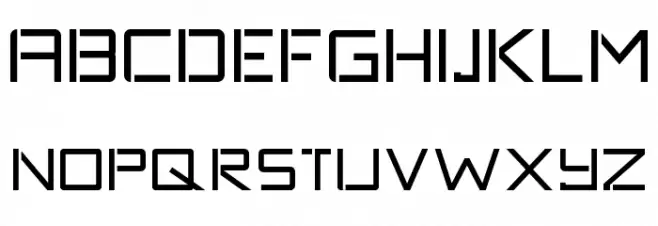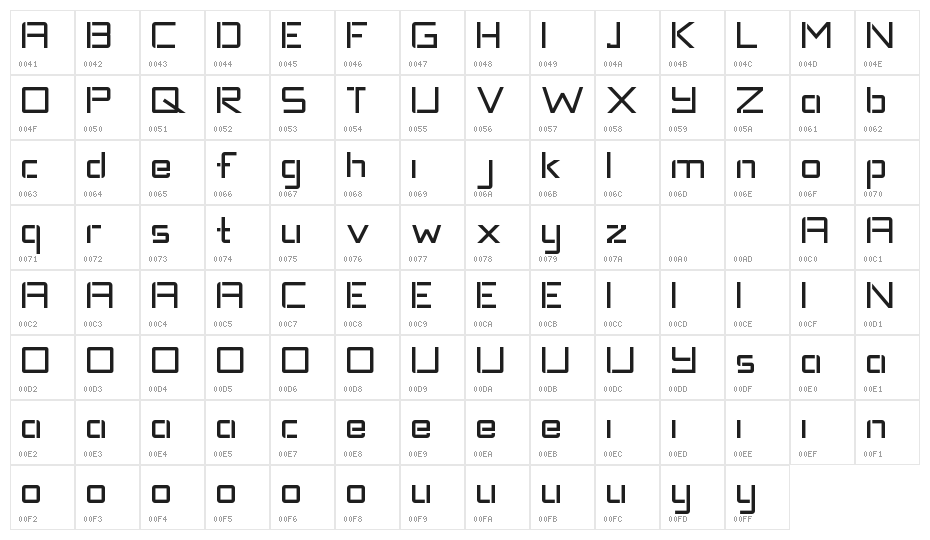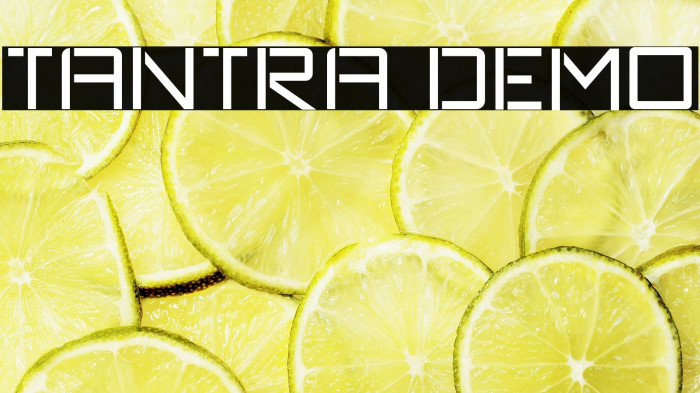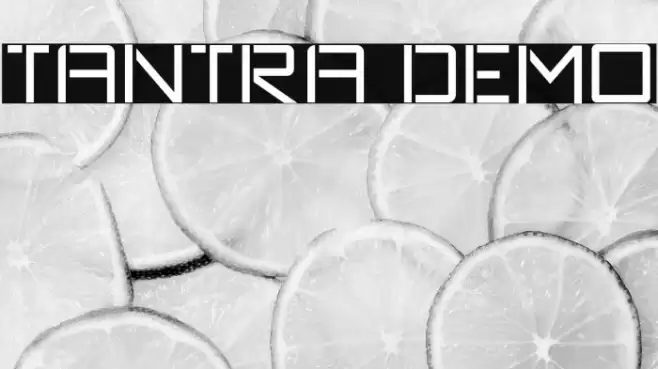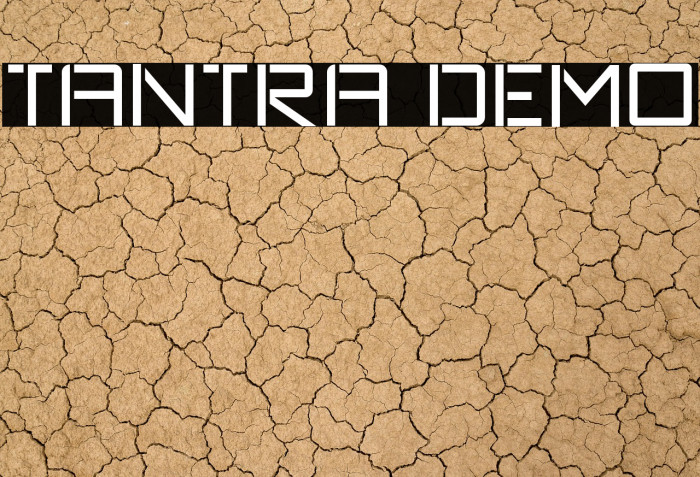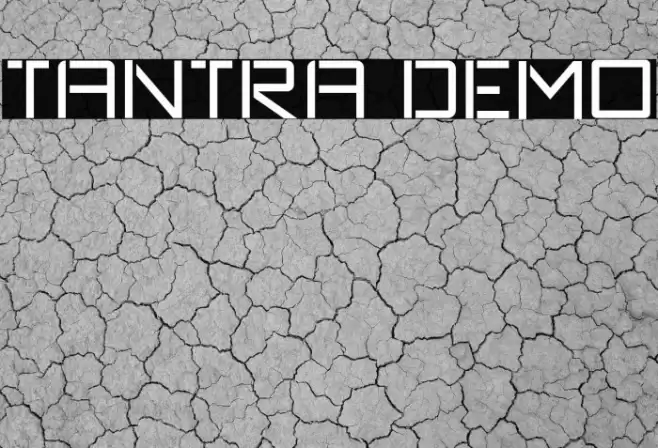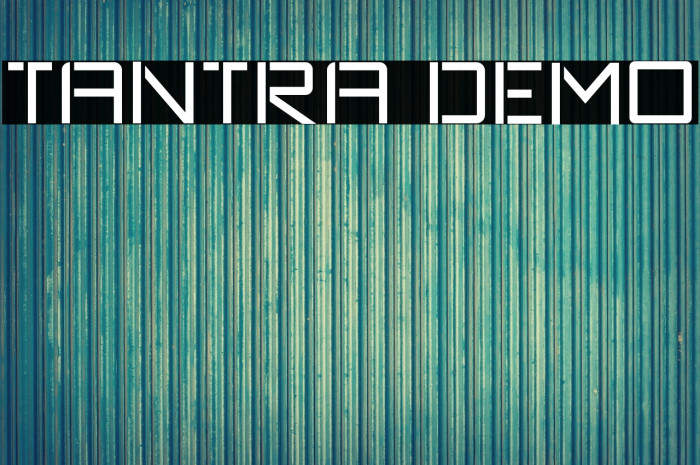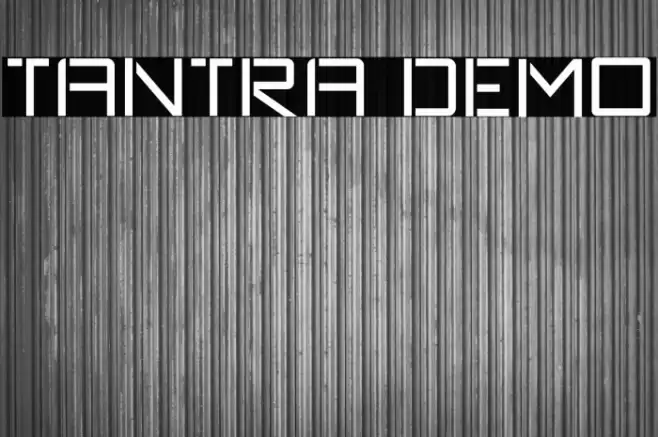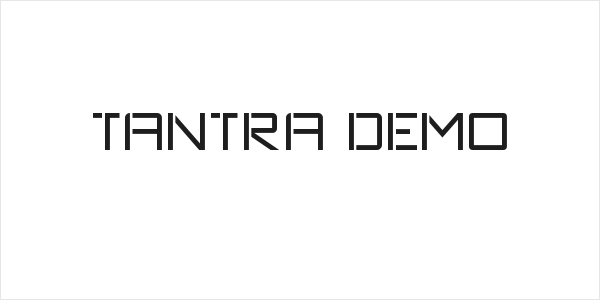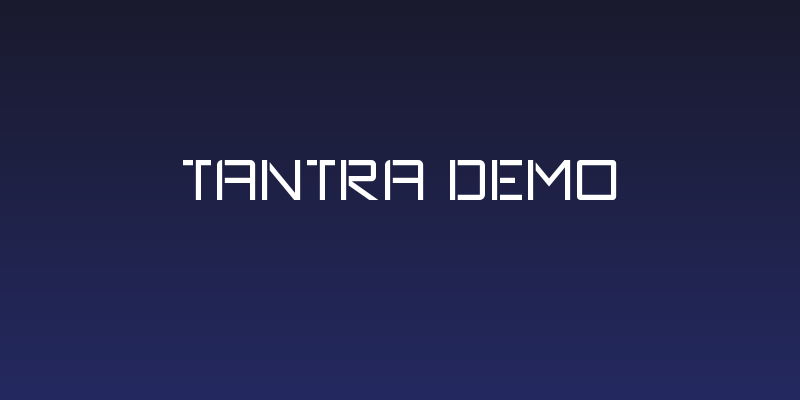
TANTRA DEMO Font
TANTRA DEMO Description
This font features a geometric and modern design, characterized by its clean lines and angular shapes. The uppercase letters exhibit a uniform height with a distinct squared-off appearance, while the lowercase letters maintain a similar geometric structure, offering a cohesive look across both cases. The numerals and special characters follow the same design principles, ensuring consistency throughout. The overall style is sleek and futuristic, making it suitable for contemporary design projects. The font's structure is both minimalistic and bold, providing a strong visual impact.